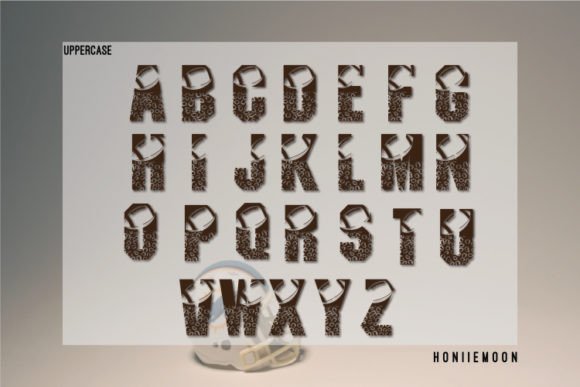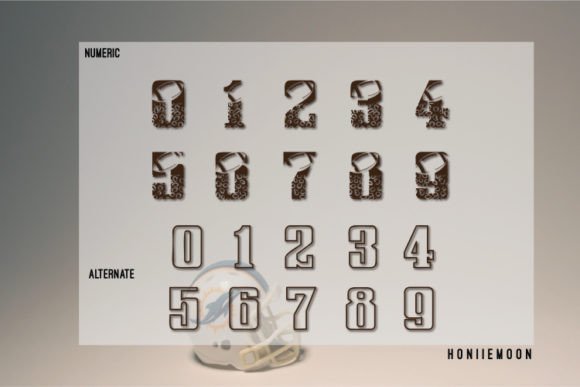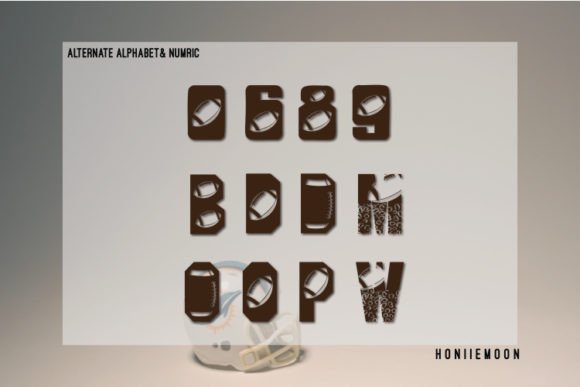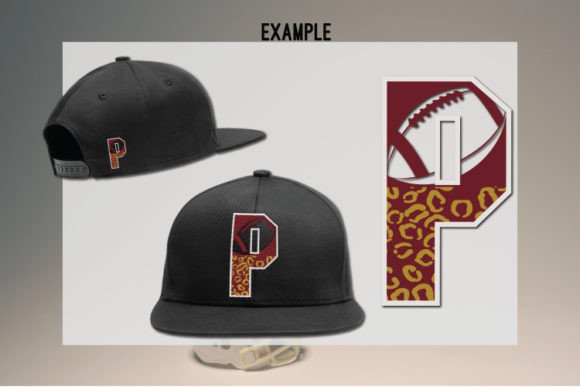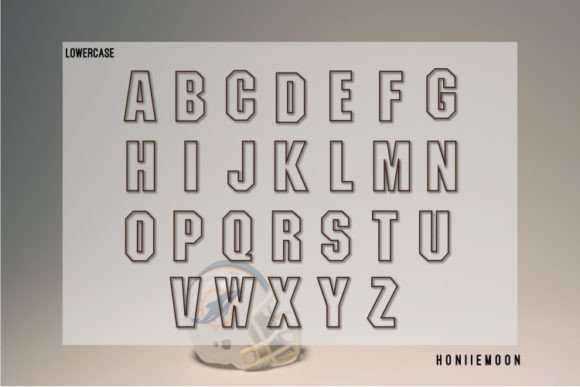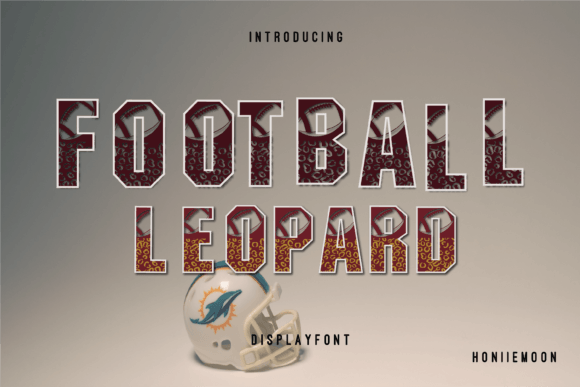
Unleash Your Creativity with Football Leopard Font
Are you a designer, crafter, or DIY enthusiast looking for a unique and exciting font to add to your creative projects? Look no further than Football Leopard Font! This cool and fun decorative display font is sure to bring a burst of energy and personality to any design, craft, or project. In this article, we’ll dive into the world of Football Leopard Font, exploring its features, benefits, and uses, as well as provide tips and inspiration for incorporating it into your creative workflow.
What is Football Leopard Font?
Football Leopard Font is a decorative display font that is perfect for adding a touch of fun and whimsy to your designs. With its bold, colorful, and playful style, this font is sure to make your projects stand out from the crowd. Whether you’re creating posters, flyers, crafts, or digital graphics, Football Leopard Font is the perfect choice for adding a pop of personality and flair.
Key Features of Football Leopard Font
- Cool and Fun Design: Football Leopard Font features a unique and eye-catching design that is sure to grab attention.
- Decorative Display Font: This font is perfect for use in headlines, titles, and other display text.
- Colorful and Vibrant: Football Leopard Font comes in a range of bright and bold colors, making it perfect for adding a pop of color to your designs.
Benefits of Using Football Leopard Font
So why choose Football Leopard Font for your creative projects? Here are just a few benefits of using this amazing font:
- Adds Personality and Style: Football Leopard Font adds a unique and playful touch to your designs, helping them to stand out from the crowd.
- Perfect for a Variety of Projects: This font is versatile and can be used in a range of projects, from posters and flyers to crafts and digital graphics.
- Easy to Read: Despite its decorative style, Football Leopard Font is easy to read, making it perfect for use in headlines and titles.
- Inspires Creativity: With its bold and colorful design, Football Leopard Font is sure to inspire your creativity and help you to think outside the box.
Using Football Leopard Font in Your Designs
So how can you use Football Leopard Font in your designs? Here are a few ideas to get you started:
- Posters and Flyers: Use Football Leopard Font to create eye-catching posters and flyers that grab attention.
- Crafts and DIY Projects: Add a personal touch to your crafts and DIY projects with this fun and playful font.
- Digital Graphics: Use Football Leopard Font to add a pop of personality to your digital graphics, such as social media graphics and blog posts.
- Signs and Banners: Create eye-catching signs and banners with Football Leopard Font that are sure to grab attention.
Tips and Tricks for Working with Football Leopard Font
Here are a few tips and tricks for getting the most out of Football Leopard Font:
- Experiment with Colors: Try out different colors and combinations to find the perfect look for your design.
- Play with Size and Scale: Experiment with different sizes and scales to add visual interest to your design.
- Combine with Other Fonts: Try pairing Football Leopard Font with other fonts to create a unique and interesting look.
- Use in Combination with Images: Use Football Leopard Font in combination with images and graphics to add an extra layer of visual interest to your design.
| Font Name | Football Leopard Font |
| Author | Honiiemoon |
Football Leopard Font is a cool and fun decorative display font that is perfect for adding a touch of personality and style to your creative projects. With its bold, colorful, and playful design, this font is sure to inspire your creativity and help you to think outside the box. Whether you’re a designer, crafter, or DIY enthusiast, Football Leopard Font is a must-have addition to your font collection. So why wait? Download Football Leopard Font today and start unleashing your creativity!